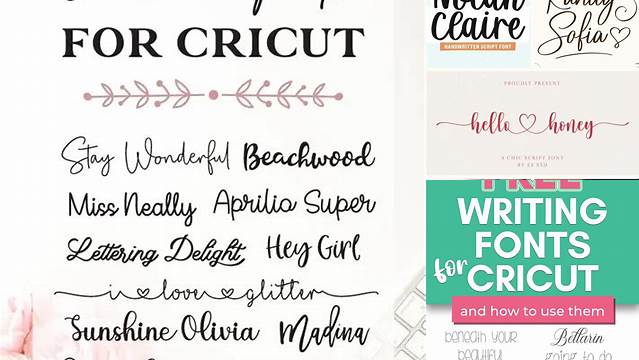
Free Cricut Cursive Fonts That Connect: The Ultimate Guide
Are you on the hunt for cricut cursive fonts that connect for free? Well, you've come to the right place! Finding the perfect font for your Cricut projects can be a game-changer, especially when you're aiming for that elegant, seamless cursive look. In this guide, we'll dive deep into the world of free cursive fonts that connect beautifully, explore where to find them, and give you some tips and tricks to make the most out of your font choices. Let's get started!
Why Choose Connecting Cursive Fonts for Your Cricut Projects?
So, why all the fuss about connecting cursive fonts? It's simple: they offer a polished and professional appearance that elevates your crafts. Unlike disjointed fonts, connecting cursive fonts flow smoothly from one letter to the next, mimicking the look of real handwriting. This is particularly important for projects like wedding invitations, personalized gifts, and home décor items where aesthetics matter.
When you use a font that doesn't connect properly, you often end up with awkward gaps between letters. This not only looks unprofessional but also requires extra editing in Cricut Design Space. Who has time for that? With connecting cursive fonts, you can bypass these issues and achieve a seamless, elegant design right from the start. Plus, these fonts add a touch of sophistication that can transform an ordinary project into something truly special.
Think about creating custom labels for your pantry, designing a heartfelt quote for a wall decal, or crafting beautiful monograms for gifts. A well-chosen connecting cursive font can make all the difference, adding a personal and stylish flair that stands out. The beauty of these fonts lies in their ability to convey emotion and personality, making your projects more meaningful and impactful. So, whether you're a seasoned crafter or just starting out, mastering the art of selecting and using connecting cursive fonts will undoubtedly enhance your Cricut creations and bring your visions to life with grace and elegance.
Top Resources for Free Connecting Cursive Fonts
Alright, let’s talk about where to find these elusive free cursive fonts that connect. The internet is vast, but not all sources are created equal. Here are some top-notch resources to get you started:
FontSpace: FontSpace is a treasure trove of free fonts, including a wide variety of cursive options. The site is user-friendly, allowing you to easily filter fonts by category, style, and license type. Many fonts on FontSpace come with a commercial license, but always double-check the terms before using them in projects you intend to sell.
DaFont: DaFont is another popular choice for free fonts. It boasts an extensive collection of cursive fonts, some of which connect seamlessly. The site is well-organized, making it easy to browse and discover new fonts. However, like FontSpace, it's crucial to review the license information for each font to ensure it aligns with your intended use.
Creative Fabrica (Freebies Section): While Creative Fabrica is known for its premium fonts and graphics, they also offer a freebies section with a rotating selection of free fonts. Keep an eye on this section, as you might stumble upon a fantastic connecting cursive font. Plus, Creative Fabrica often provides commercial licenses for their freebies, making them suitable for both personal and commercial projects.
The Hungry JPEG (Freebies Section): Similar to Creative Fabrica, The Hungry JPEG offers a freebies section with a variety of design resources, including fonts. They often feature stylish cursive fonts that connect beautifully. Be sure to check the license terms, but generally, their freebies come with commercial licenses, making them a great option for small business owners.
Google Fonts: Don't overlook Google Fonts! While it may not have as many cursive options as some other sites, the fonts available are high-quality and completely free to use, even for commercial purposes. Plus, Google Fonts are easy to integrate into various design software and websites.
When exploring these resources, take your time to browse and experiment with different fonts. Look for fonts that not only connect well but also match the overall aesthetic of your project. And remember, always read the license information carefully to ensure you're using the fonts in accordance with their terms. Happy font hunting, guys!
Key Features to Look for in Connecting Cursive Fonts
Okay, so you know where to find fonts, but what should you actually look for? Not all cursive fonts are created equal. Here are some key features to keep in mind when choosing cricut cursive fonts that connect:
Smooth Connections: This might seem obvious, but it's the most crucial aspect. Ensure that the letters flow seamlessly into one another without any awkward gaps or overlaps. Test the font in Cricut Design Space by typing out a few words to see how the connections look.
Consistent Baseline: A consistent baseline means that the letters sit evenly on the line, creating a polished and professional appearance. Avoid fonts where the letters jump up and down, as this can make your design look messy.
Slow Down the Cutting Speed: If you're having trouble with clean cuts, try slowing down the cutting speed of your Cricut machine. This will give the blade more time to cut through the material, resulting in smoother, more precise cuts.